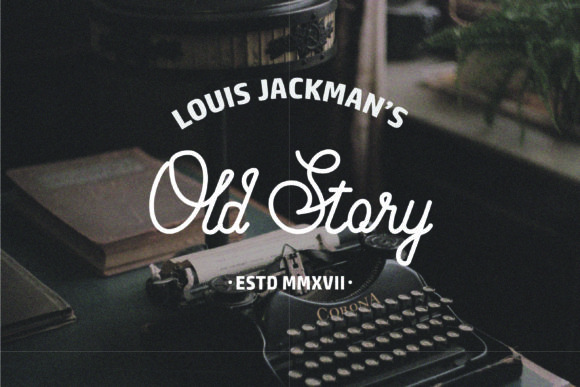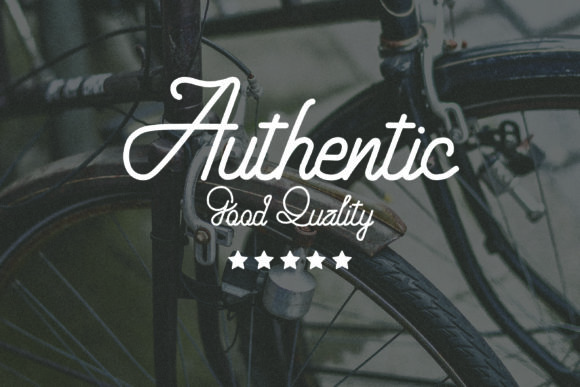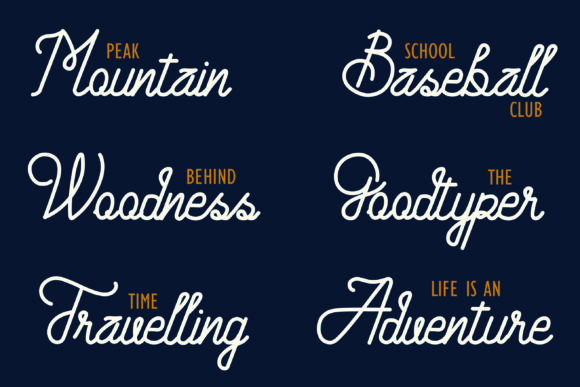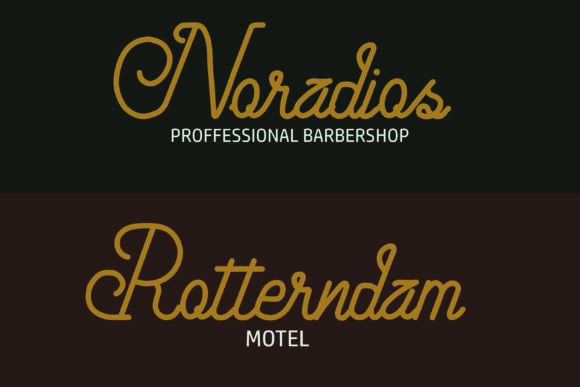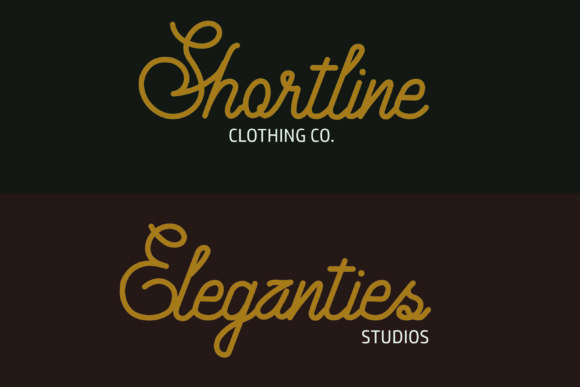
Introduction to Skulduggery Font Font
Fonts play a crucial role in design, and the Skulduggery Font font is a typeface that brings both character and versatility to any project. Whether you’re working on a branding project, a website, or a print design, the Skulduggery Font font offers a unique style that can elevate your work.
Skulduggery is a retro styled handwritten font, crafted to give your headlines and logotype projects a stylish touch.
This font reads as strong, confident, and dynamic and can add tons of nostalgic character to your designs .
Key Features of Skulduggery Font Font
Why Choose Skulduggery Font Font?
The Skulduggery Font font is more than just a typeface – it’s a design tool that helps you communicate your message with style and clarity. Its unique character set and versatile design make it suitable for a wide range of applications, from elegant invitations to bold headlines.
With its carefully crafted letterforms and balanced proportions, the Skulduggery Font font ensures readability and visual appeal across all mediums.
What makes Skulduggery Font font special?
The Skulduggery Font font stands out with its unique design, exceptional readability, and versatility across various design applications.